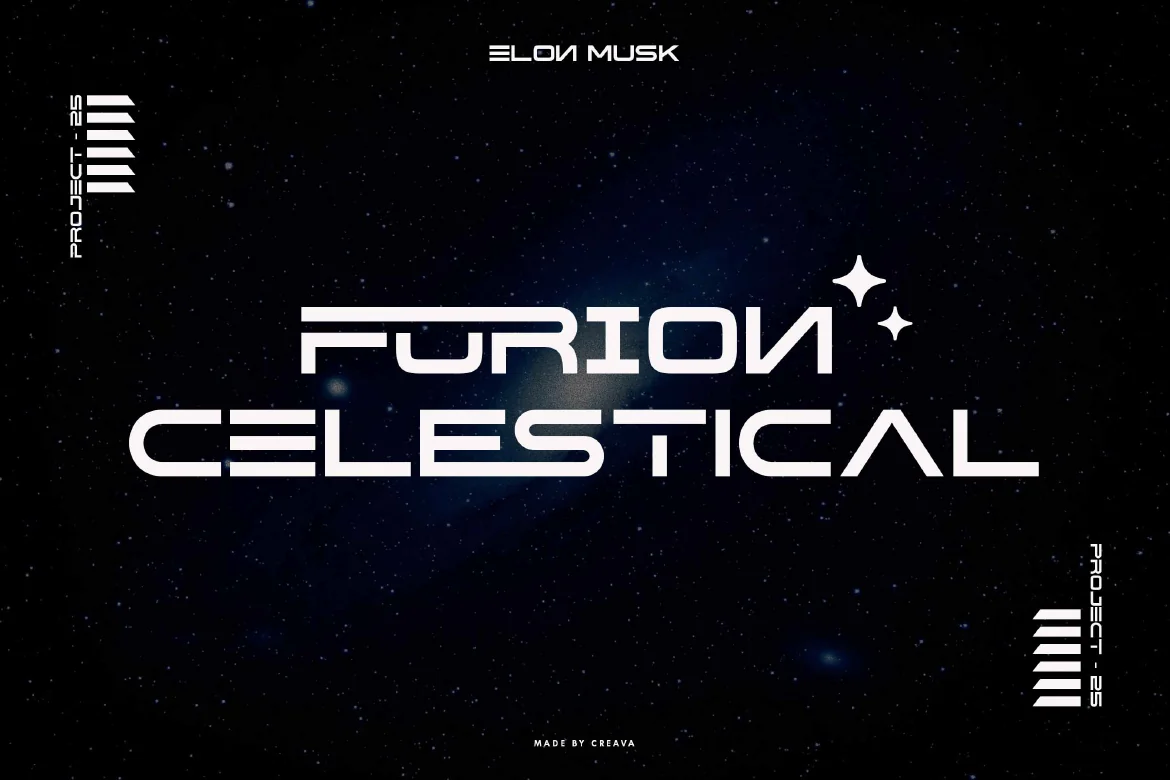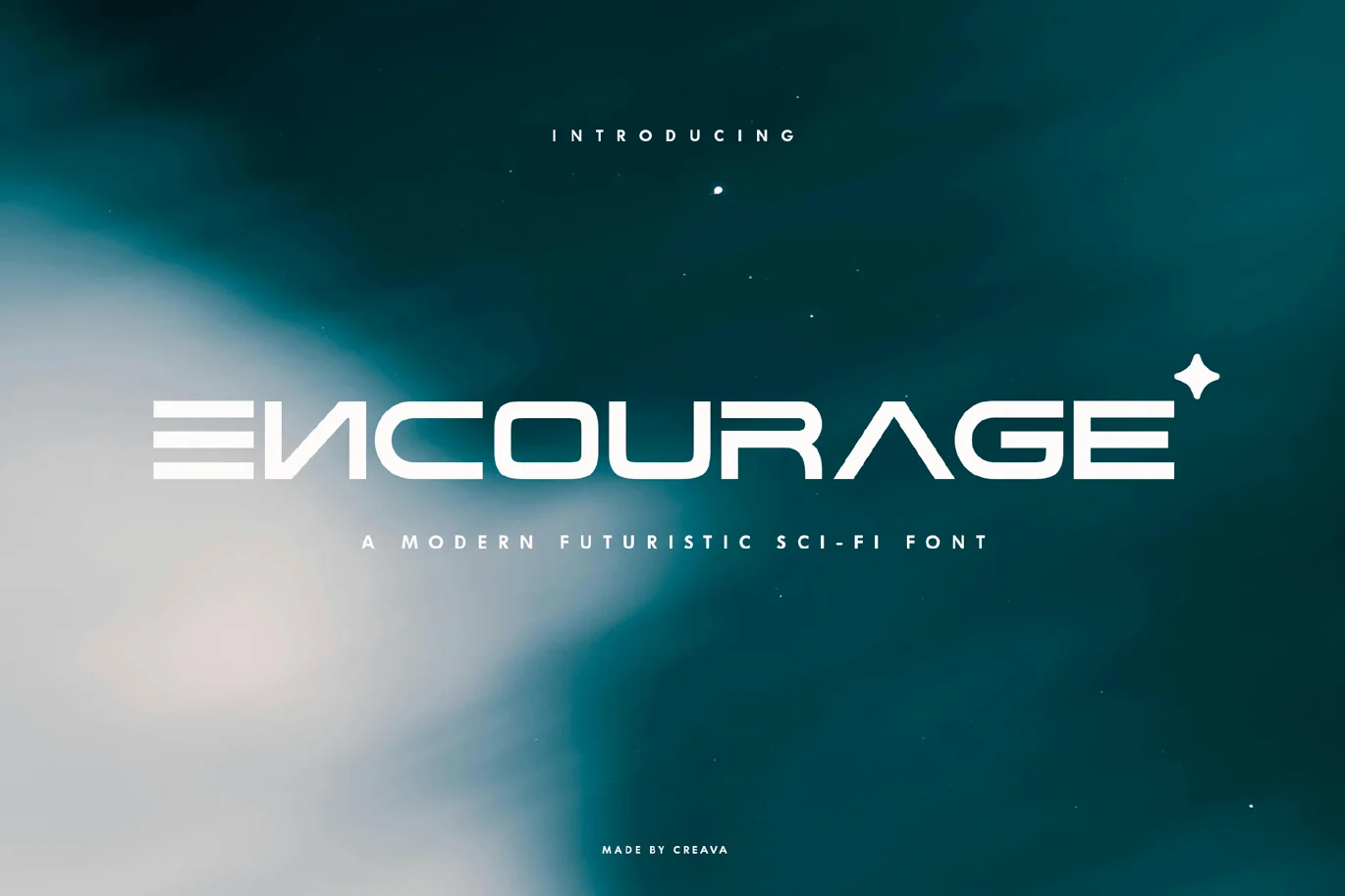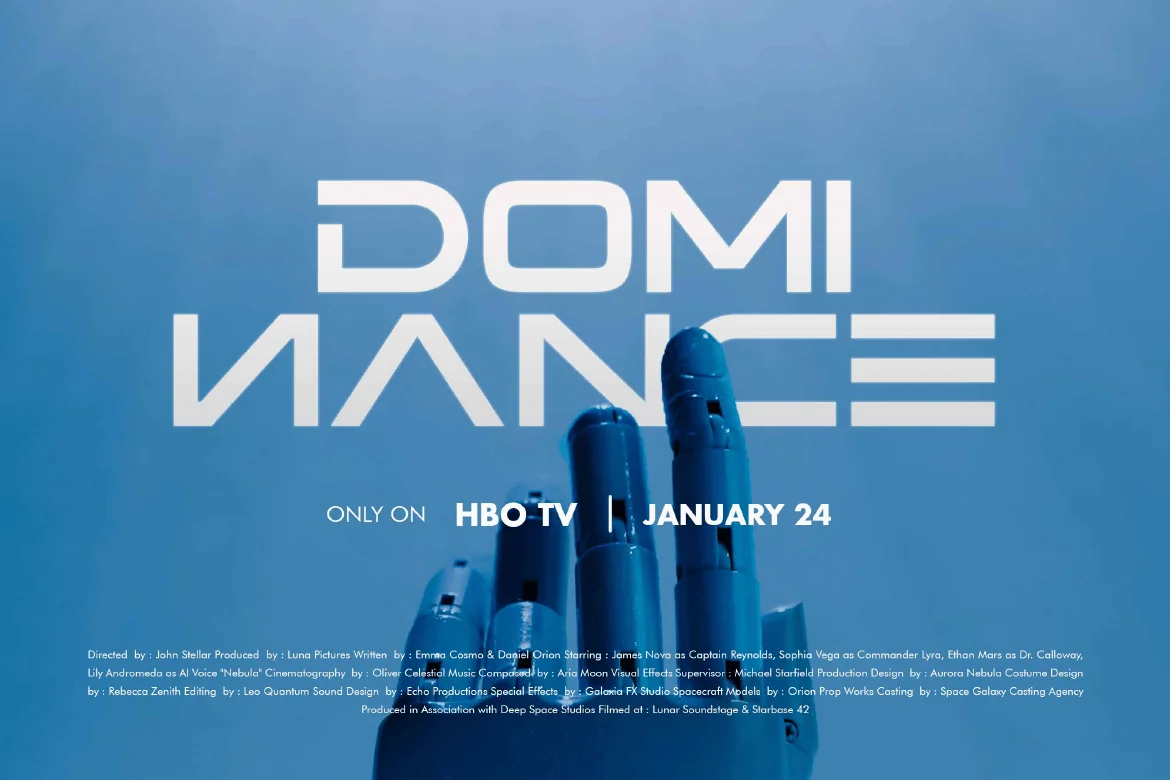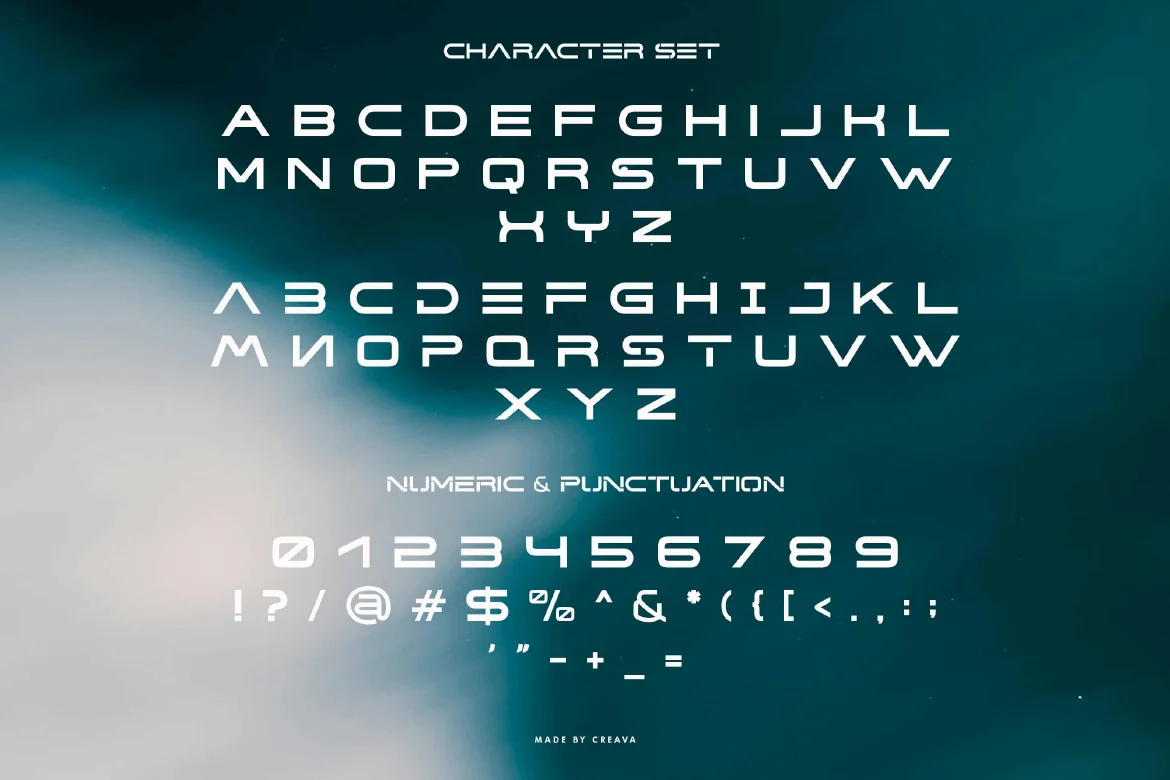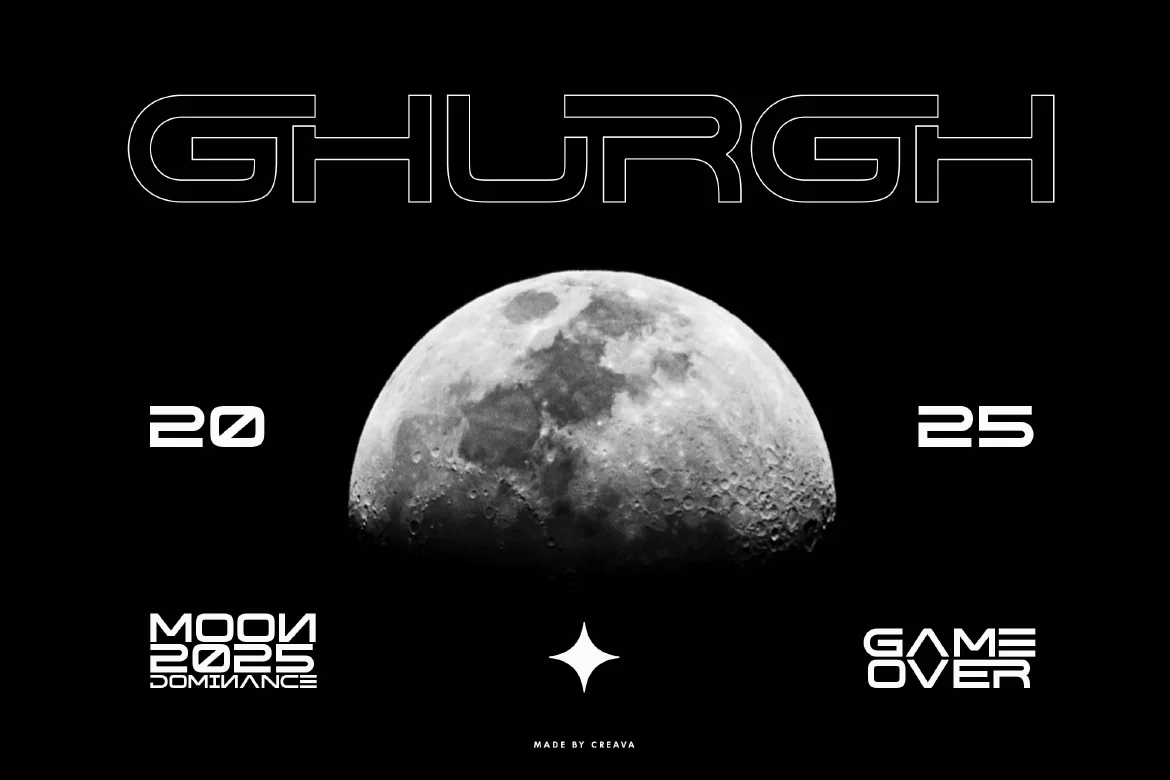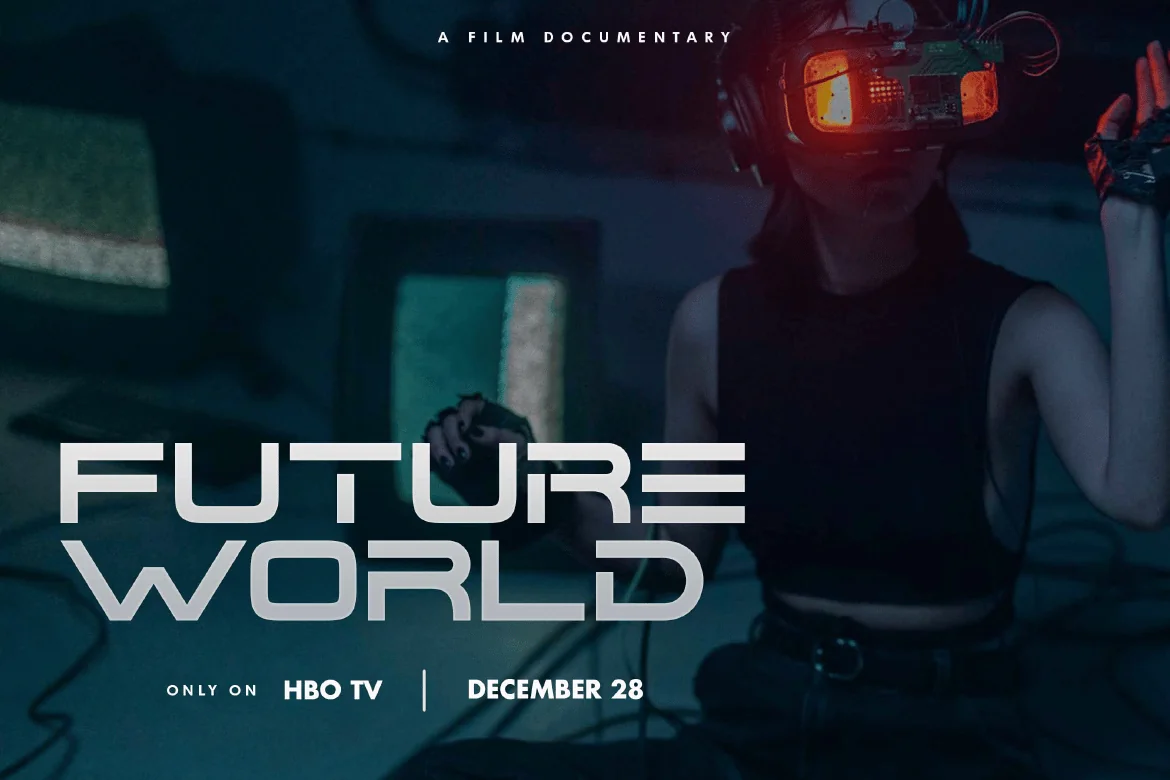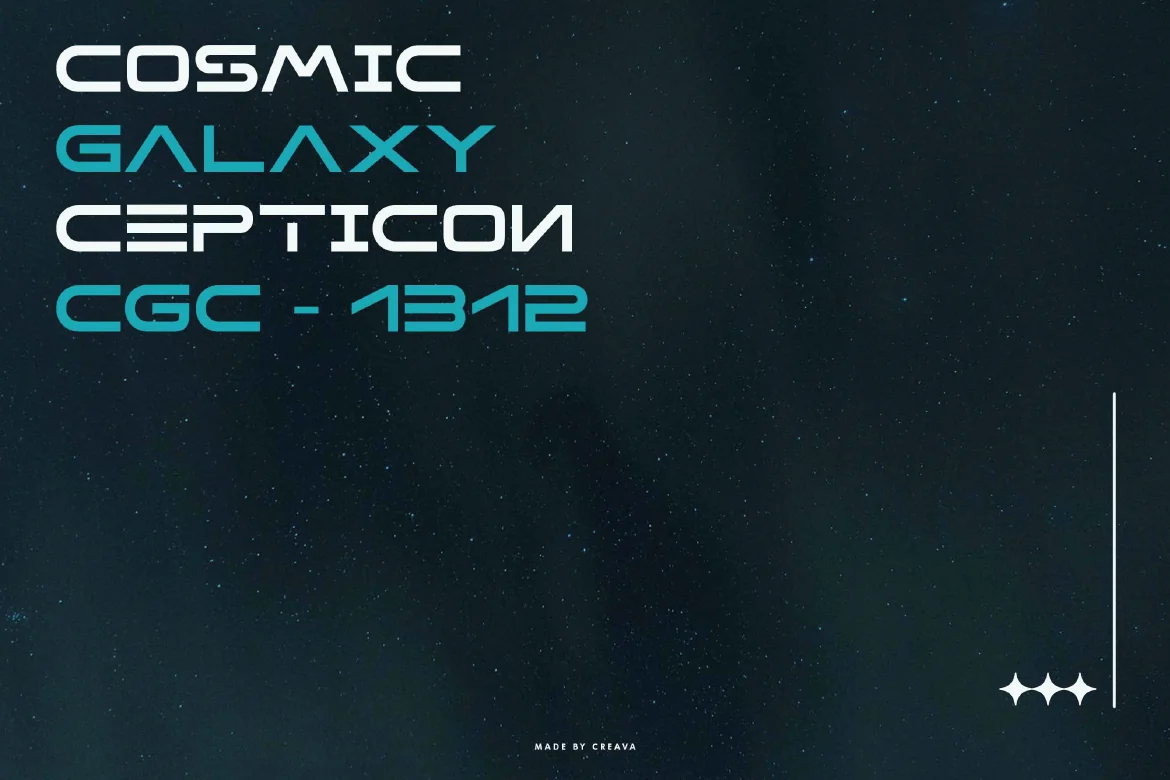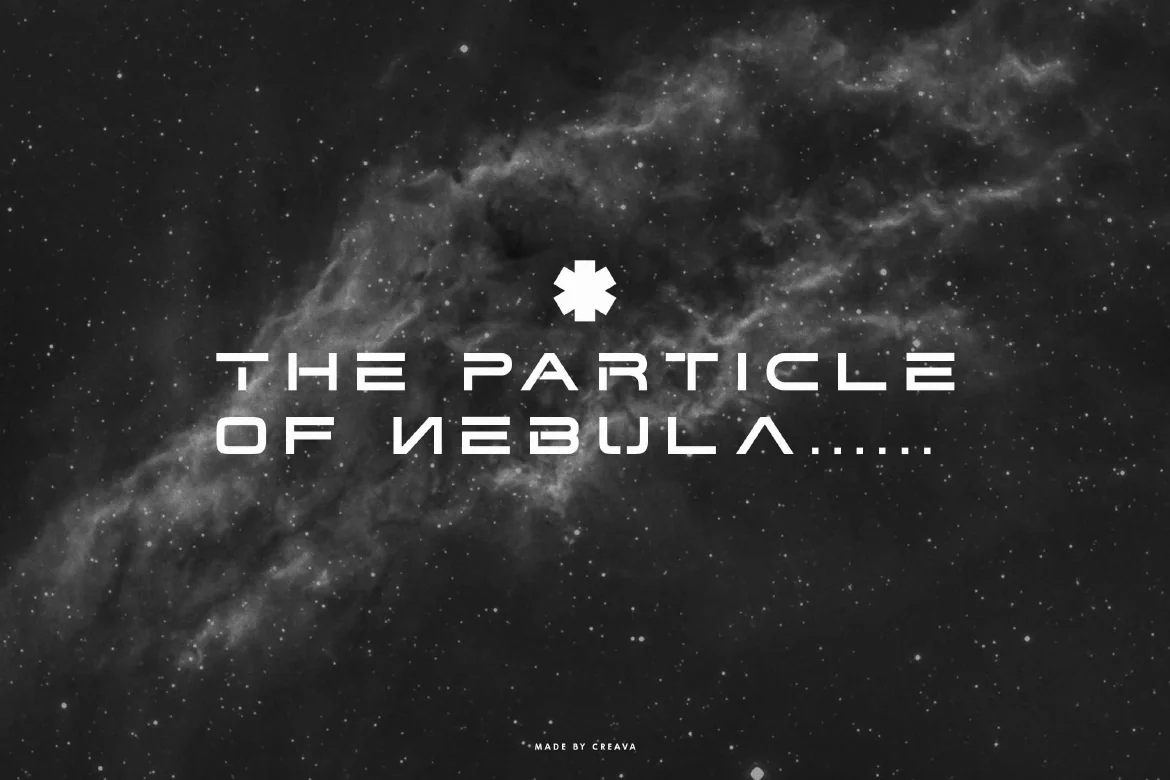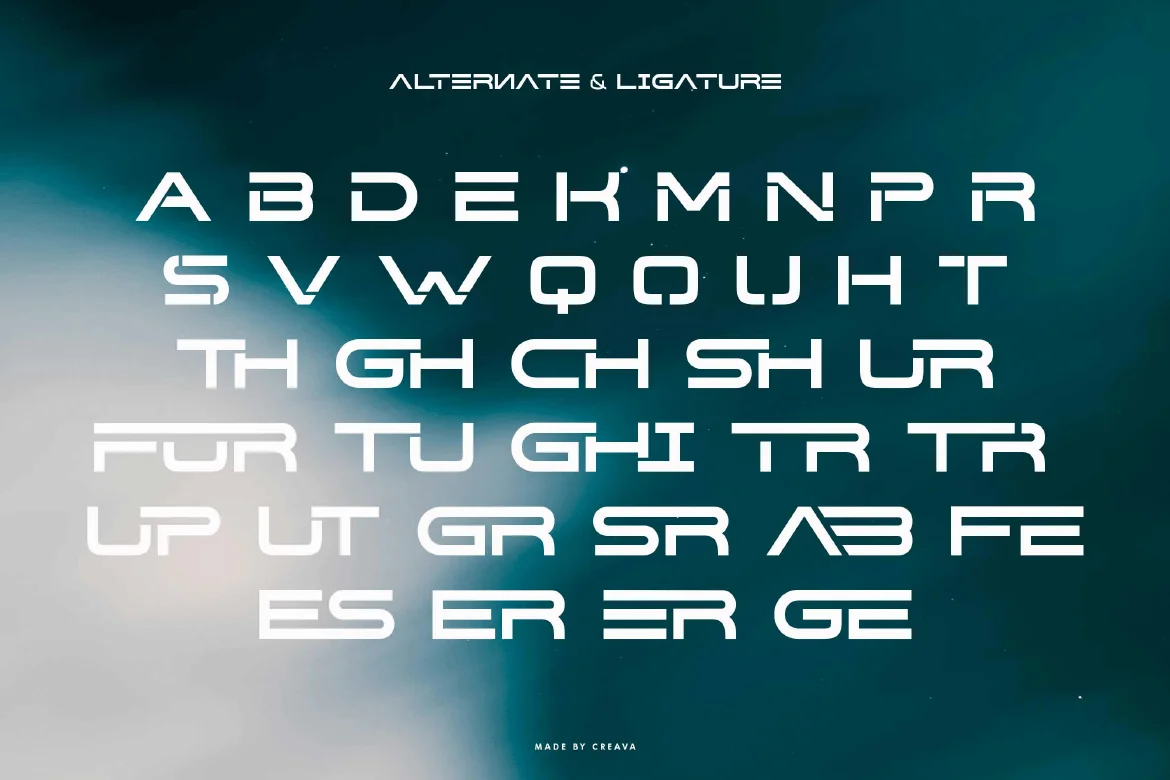
Encourage futuristic Font
Encourage is a modern futuristic sci-fi font that embodies innovation and technology. With its sleek and cutting-edge design, this font is suitable for movie posters, gaming titles, tech branding, space-themed projects, digital interfaces, and futuristic logo designs. Encourage brings a bold and modern touch to any sci-fi-inspired creation.